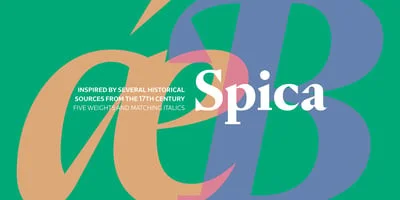
Spica Font
Spica Font is perfect for astronomy observatory branding, space science publications, planetarium displays, stellar research presentations, cosmic educational materials, space exploration campaigns, scientific constellation charts, astronomy magazine layouts, celestial navigation graphics, stargazing event promotions, and any project that requires brilliant stellar character with astronomical sophistication.
What makes Spica Font exciting is its luminous embodiment of stellar brilliance and cosmic wonder through precisely crafted letterforms that capture the radiant beauty of the brightest stars and the infinite majesty of the universe. This celestial typeface features clean, geometric characteristics with stellar precision that convey scientific accuracy while maintaining the awe-inspiring beauty of astronomical discovery. The font's stellar character adds instant cosmic credibility and astronomical appeal to any design, making it perfect for organizations exploring the frontiers of space science and stellar research.
Spica Font comes in multiple font families including Regular, Bold, Light, Condensed, Stellar, and Cosmic variations, offering designers comprehensive options to create astronomical compositions and achieve the perfect celestial aesthetic for space-focused design projects.
Whether you're developing space science branding, creating astronomical educational materials, or designing cosmic exploration campaigns, Spica Font provides the ideal solution for projects demanding authentic stellar character and astronomical sophistication. This brilliant typeface excels in both print and digital applications where cosmic presence is essential, ensuring your designs communicate stellar excellence and astronomical precision. The luminous character and stellar styling of Spica Font make it an indispensable tool for designers who prioritize space science, astronomical research, and cosmic exploration aesthetics in their typographic selections.